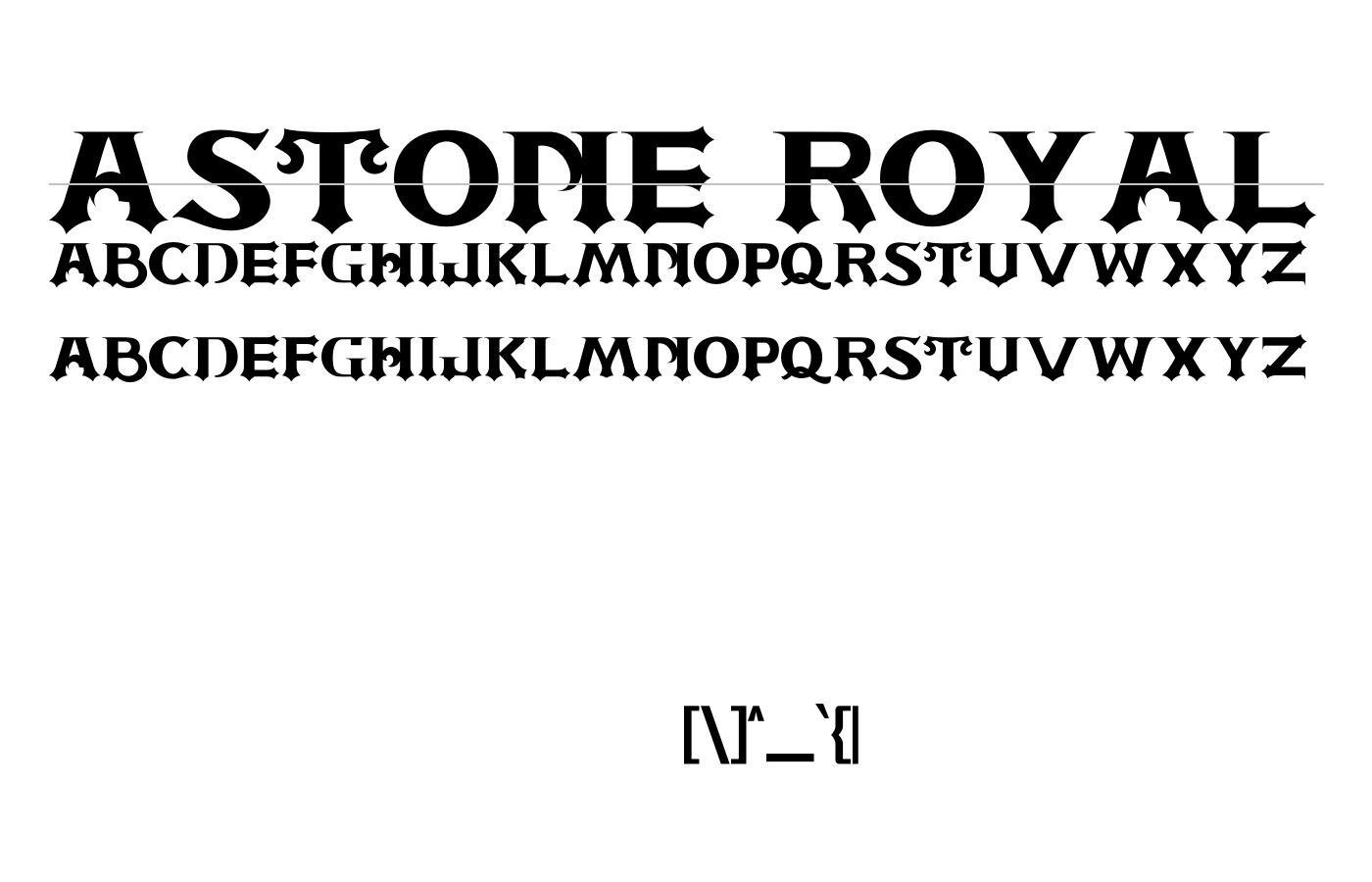
Astone Royal is a bold serif typeface with a strong, decorative flair that evokes a vintage, regal atmosphere. Its sharp, thick serifs and high contrast between thick and thin strokes give it a dramatic and authoritative feel, making it ideal for logos, headlines, and branding that aims to convey luxury and tradition. This font works best in large sizes where its intricate details can shine, perfect for fashion, editorial, and high-end packaging design.
ASTONE ROYAL Font